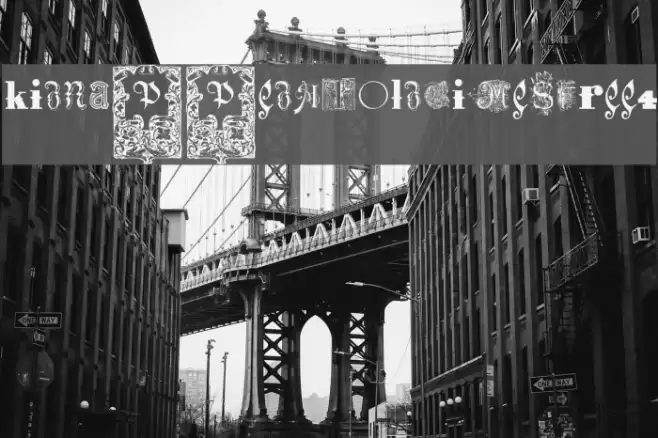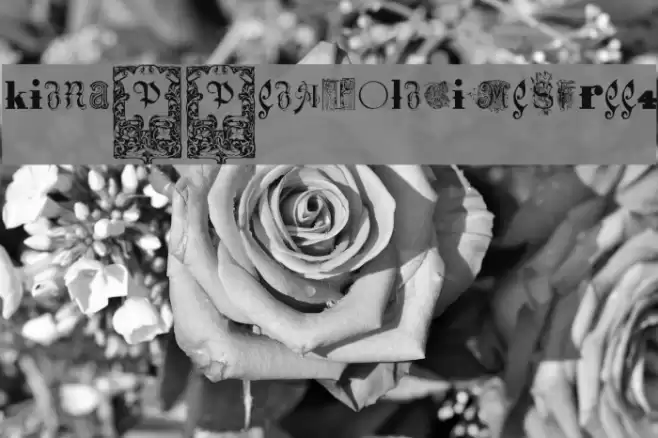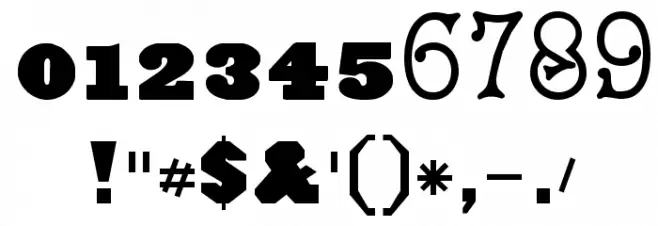
Kidnapped At Old Times Free 4 Font
Kidnapped At Old Times Free 4 Description
This font is a highly decorative and ornate typeface, featuring intricate designs and embellishments within each character. The uppercase letters are particularly elaborate, with some characters enclosed in ornate frames, reminiscent of medieval manuscripts or vintage signage. The lowercase letters maintain a similar decorative style, though slightly less complex. The numerals are bold and distinct, with some incorporating decorative elements. Special characters follow the same ornate theme, making this font highly suitable for projects that require a historical or vintage aesthetic.
An ornate, decorative font with intricate designs, ideal for vintage-themed projects from Uncategorized fonts.
- Proposed Projects: This font is perfect for creating vintage posters, book covers, historical event invitations, or any design that requires a touch of elegance and historical flair.
- Overall Style: Vintage
- Use Case: Headlines, Logos, Decorative text